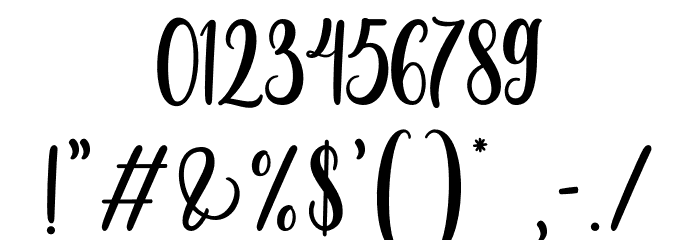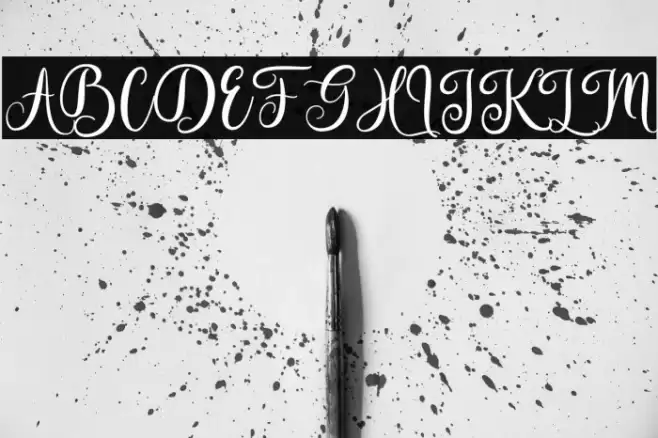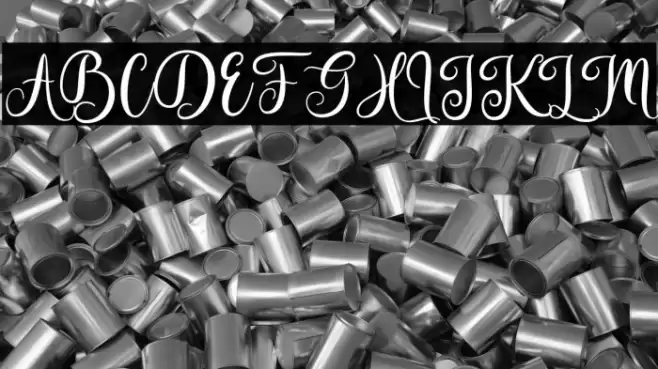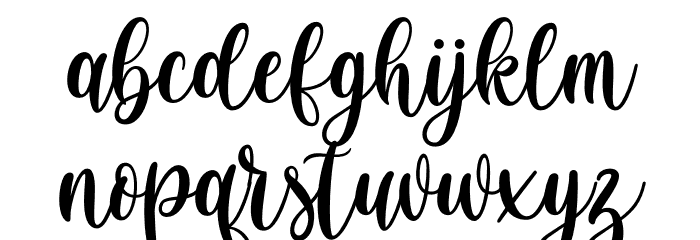
Brightside Font
Brightside Description
This font features an elegant and flowing script style, characterized by its smooth, cursive strokes and decorative flourishes. The uppercase letters are particularly ornate, with intricate loops and swirls that give a sense of sophistication and grace. The lowercase letters maintain a consistent flow, with a slightly more casual appearance, yet still retaining the overall elegance. The numerals and special characters complement the letterforms with similar stylistic elements, ensuring a cohesive look across all characters. This font is well-suited for projects that require a touch of elegance and style, such as wedding invitations, branding, and high-end product packaging.
| Use Case | Logos, Invitations, Branding |
| Proposed Projects | Ideal for wedding invitations, luxury branding, and elegant product packaging. |